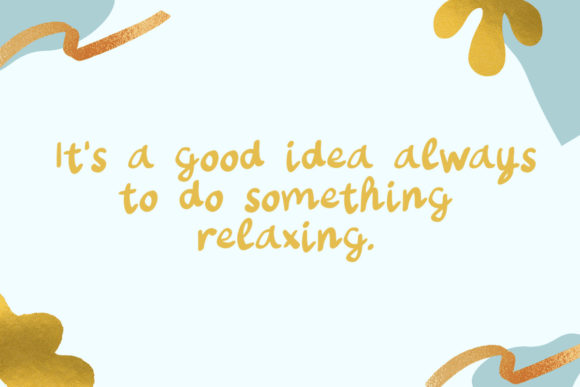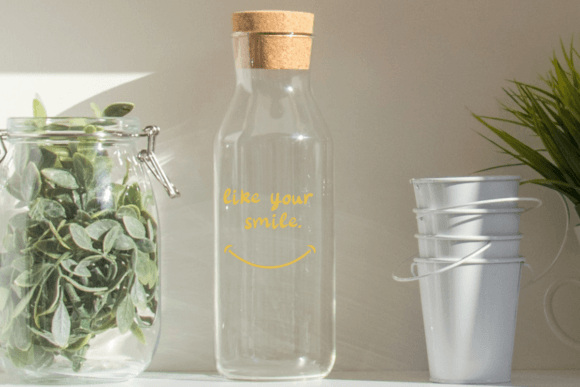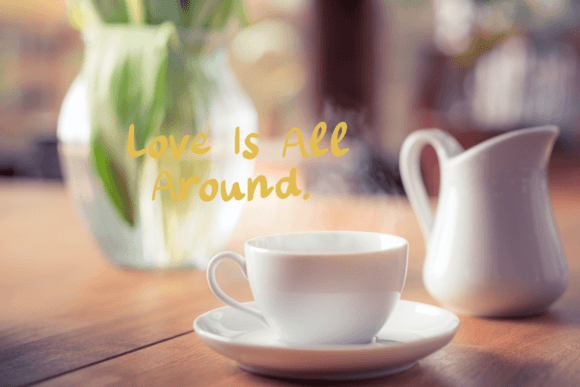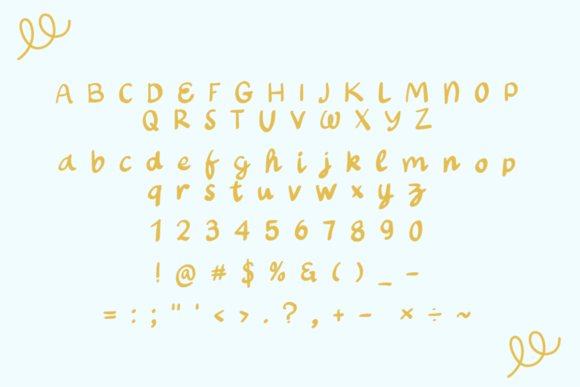
Introducing Harmony Font: The Perfect Addition to Your Creative Projects
Are you a designer, crafter, or creative looking for a font that can add a touch of elegance and whimsy to your projects? Look no further than Harmony Font, a beautiful and versatile display font that’s perfect for a wide range of applications. In this article, we’ll take a closer look at Harmony Font, its features, and how you can use it to elevate your creative projects.
What is Harmony Font?
Harmony Font is a cute and display font designed to add a touch of charm and personality to your content. Its unique and elegant design makes it perfect for projects that require a bit of flair, such as wedding invitations, travel brochures, craft tutorials, and more. With its clean lines, beautiful curves, and playful feel, Harmony Font is sure to capture the attention of your audience and leave a lasting impression.
Features of Harmony Font
So, what makes Harmony Font so special? Here are just a few of its key features:
- Cute and playful design: Harmony Font has a unique and charming design that’s perfect for projects that require a bit of personality.
- Display font: Harmony Font is designed to be used as a display font, making it perfect for headlines, titles, and other prominent text elements.
- Versatile: Harmony Font can be used for a wide range of projects, from wedding invitations to travel brochures, craft tutorials, and more.
- Elegant and whimsical: Harmony Font has a beautiful, elegant design with a playful feel that’s sure to capture the attention of your audience.
How to Use Harmony Font in Your Creative Projects
Harmony Font is a versatile font that can be used in a wide range of creative projects. Here are just a few ideas to get you started:
- Wedding invitations: Add a touch of elegance and romance to your wedding invitations with Harmony Font.
- Travel brochures: Use Harmony Font to add a playful and adventurous feel to your travel brochures.
- Craft tutorials: Add a touch of whimsy and personality to your craft tutorials with Harmony Font.
- Social media graphics: Use Harmony Font to add a bit of flair to your social media graphics and make them stand out.
Why Choose Harmony Font?
So, why should you choose Harmony Font for your creative projects? Here are just a few reasons:
- Unique design: Harmony Font has a unique and charming design that’s sure to capture the attention of your audience.
- Versatile: Harmony Font can be used for a wide range of projects, making it a great addition to your font library.
- High-quality: Harmony Font is a high-quality font that’s designed to produce crisp, clear text at any size.
In conclusion, Harmony Font is a beautiful and versatile display font that’s perfect for a wide range of creative projects. Its unique and elegant design makes it perfect for adding a touch of charm and personality to your content. Whether you’re a designer, crafter, or creative, Harmony Font is a great addition to your font library. So why wait? Download Harmony Font today and start adding a touch of elegance and whimsy to your creative projects!